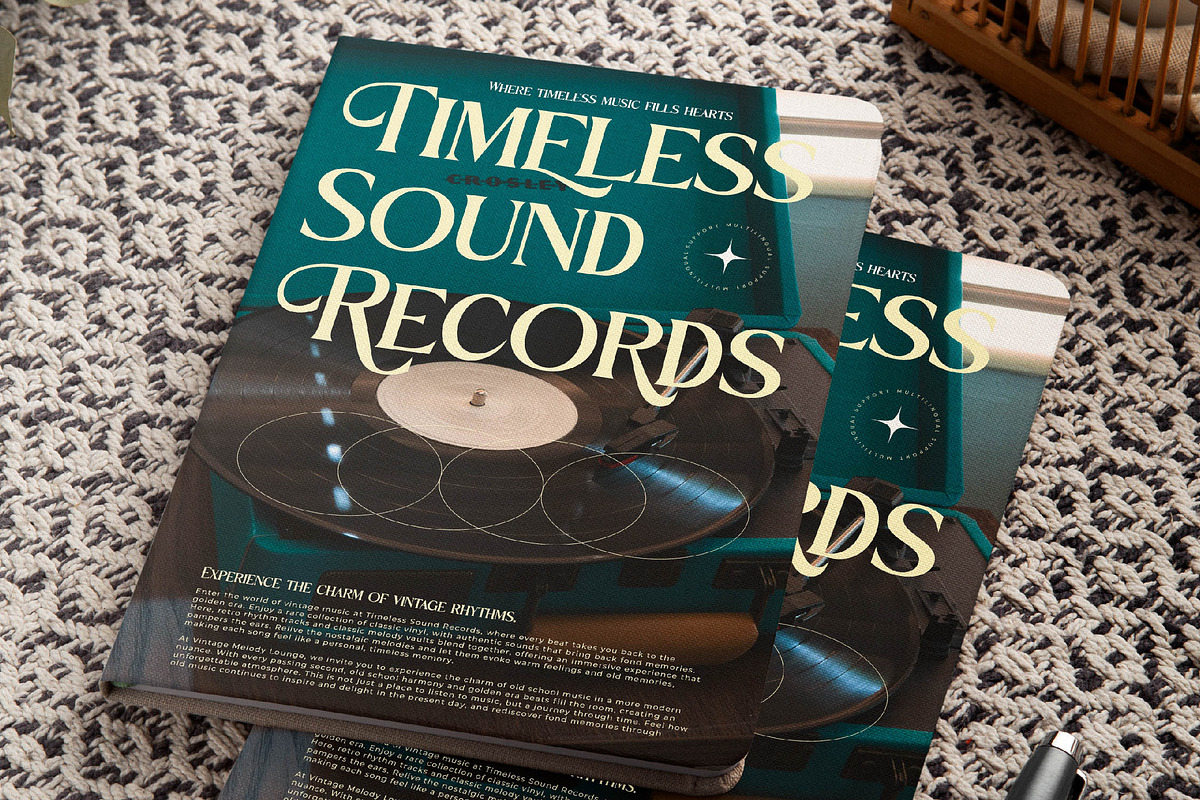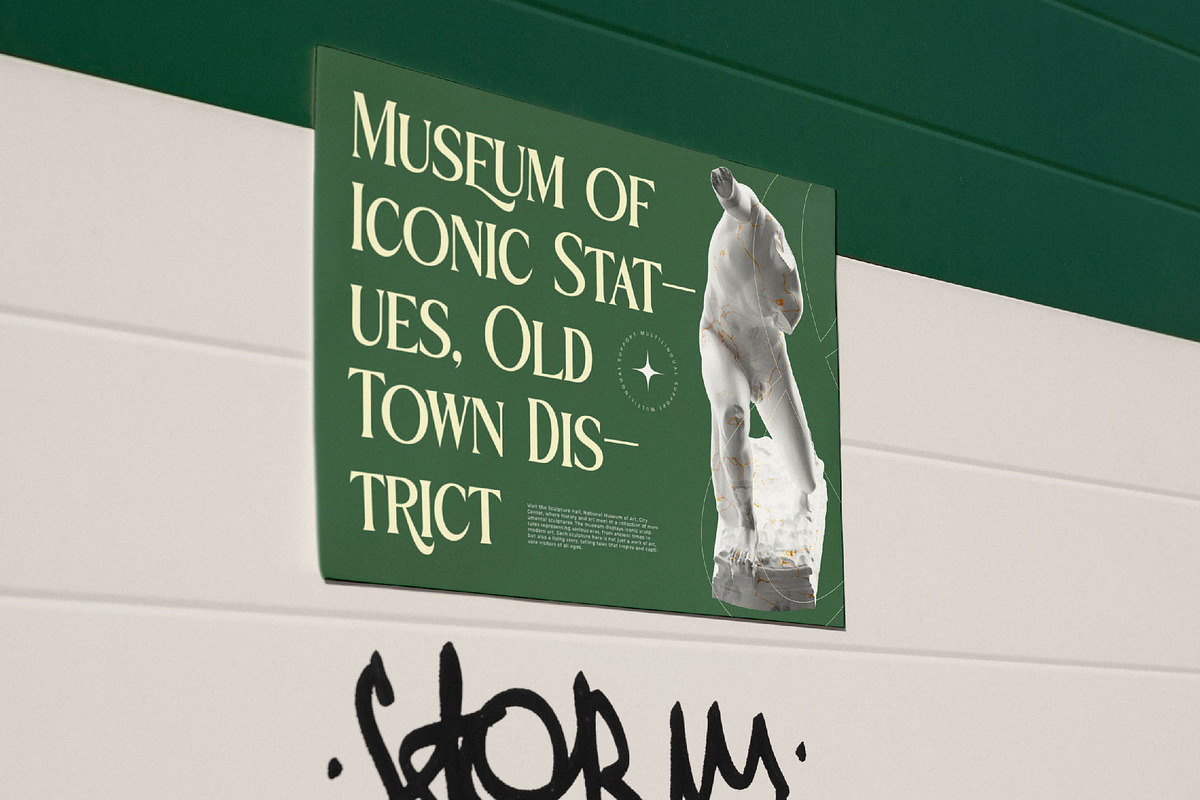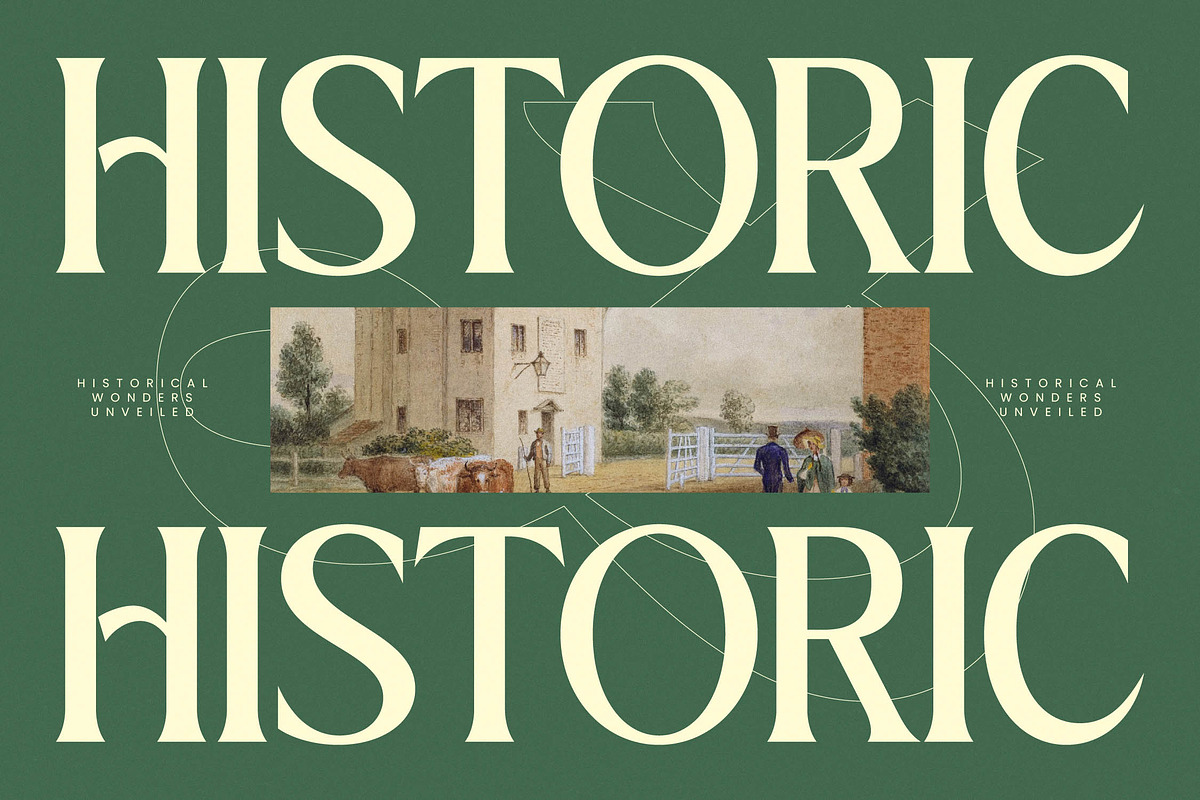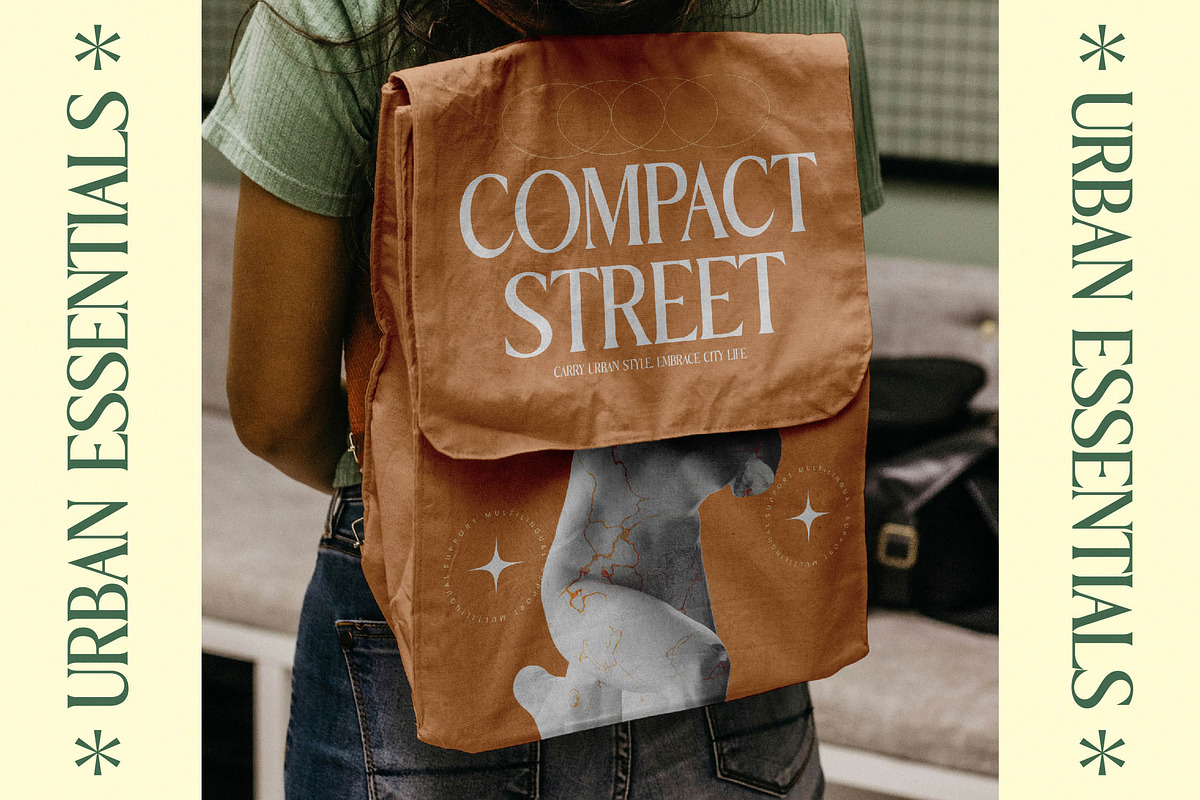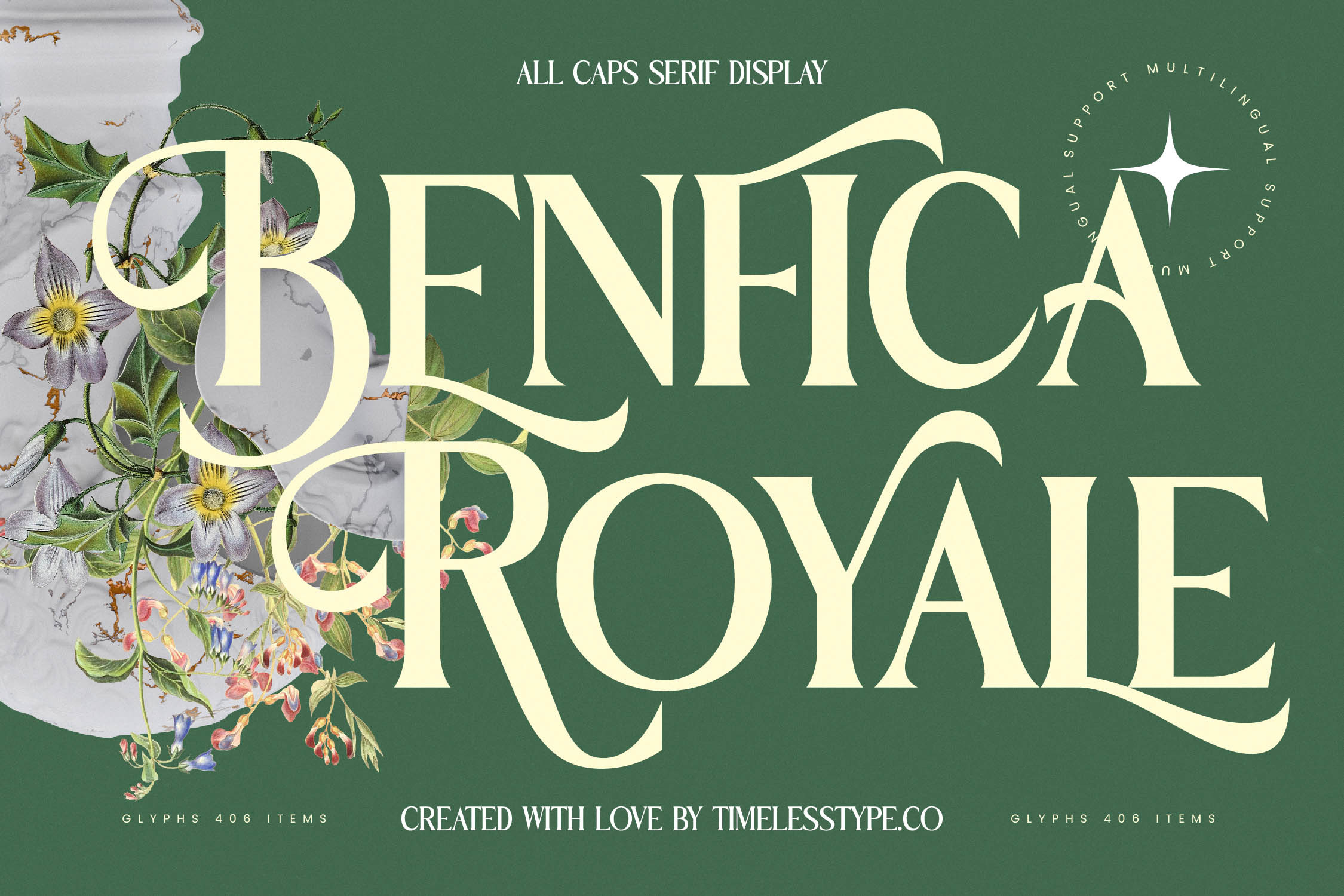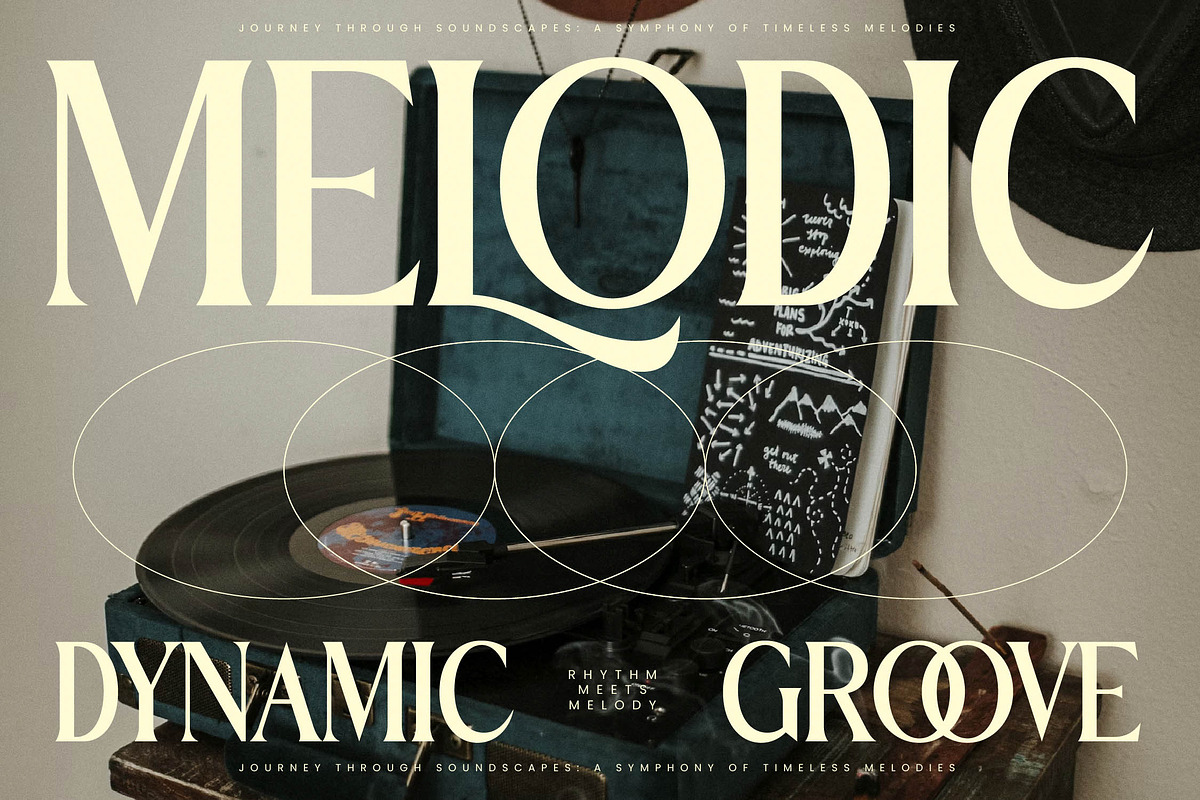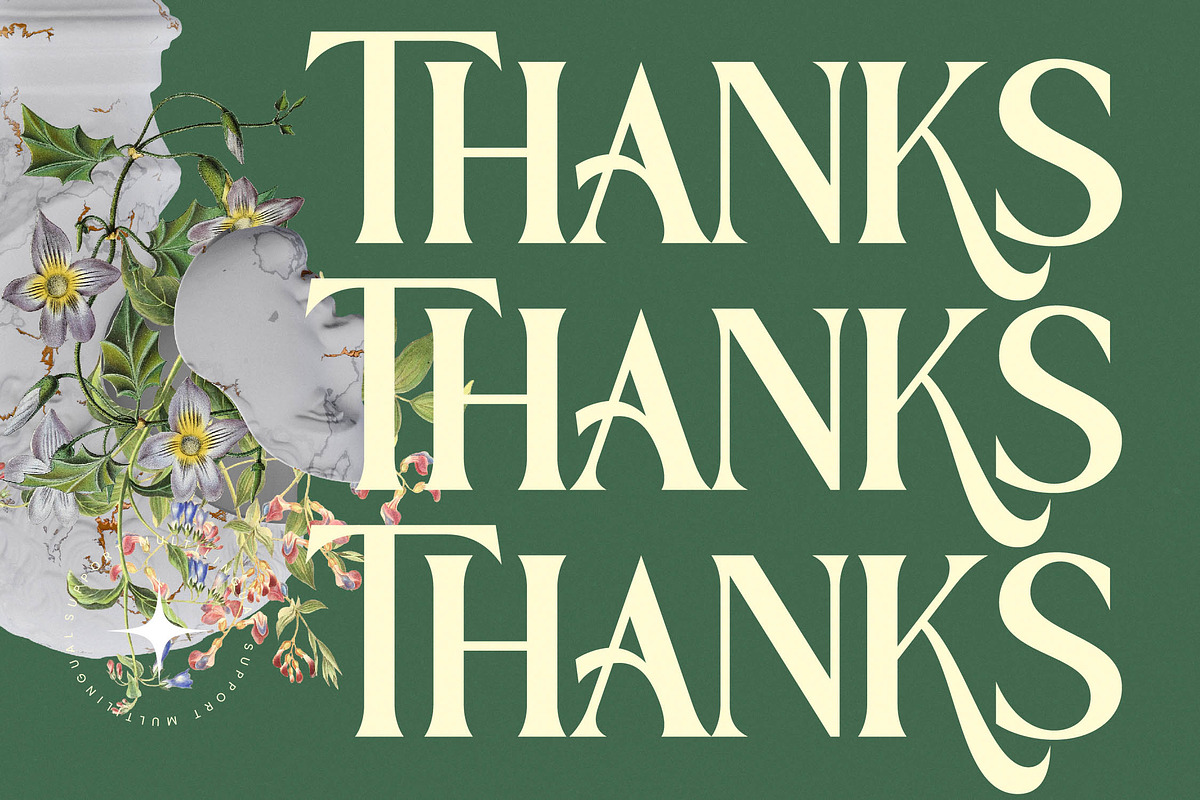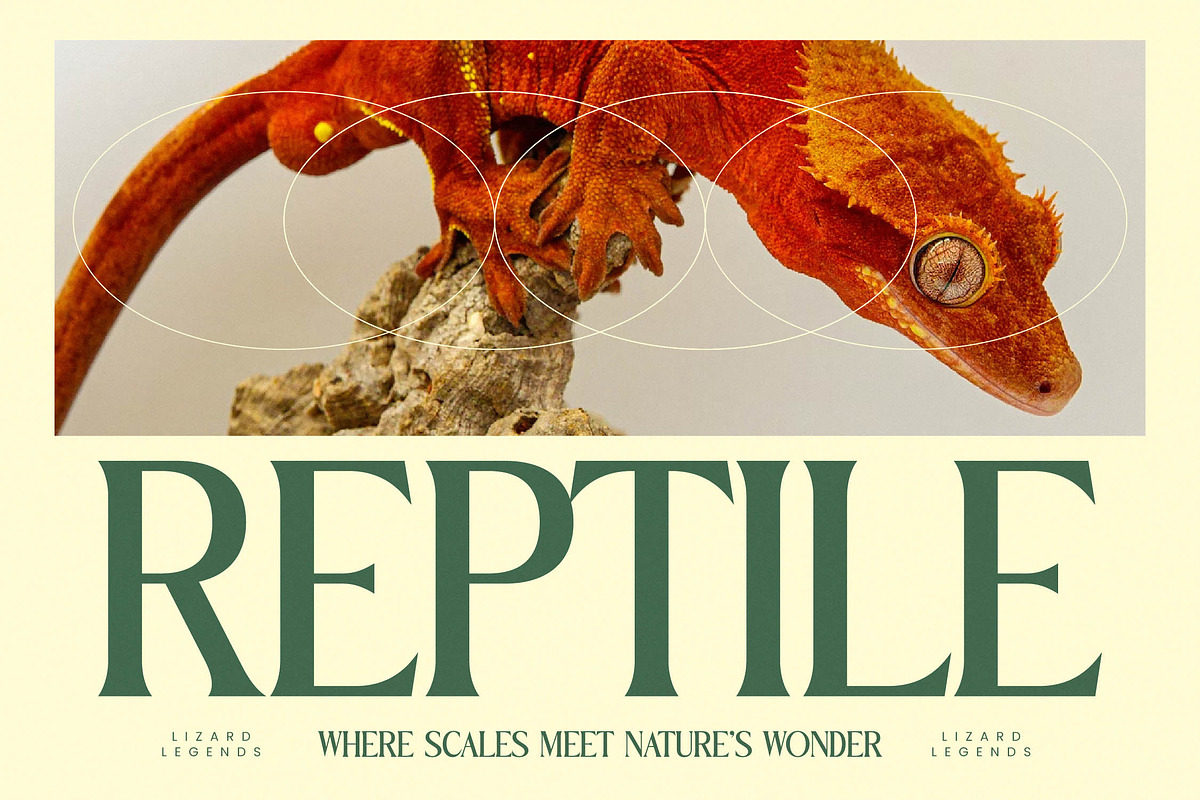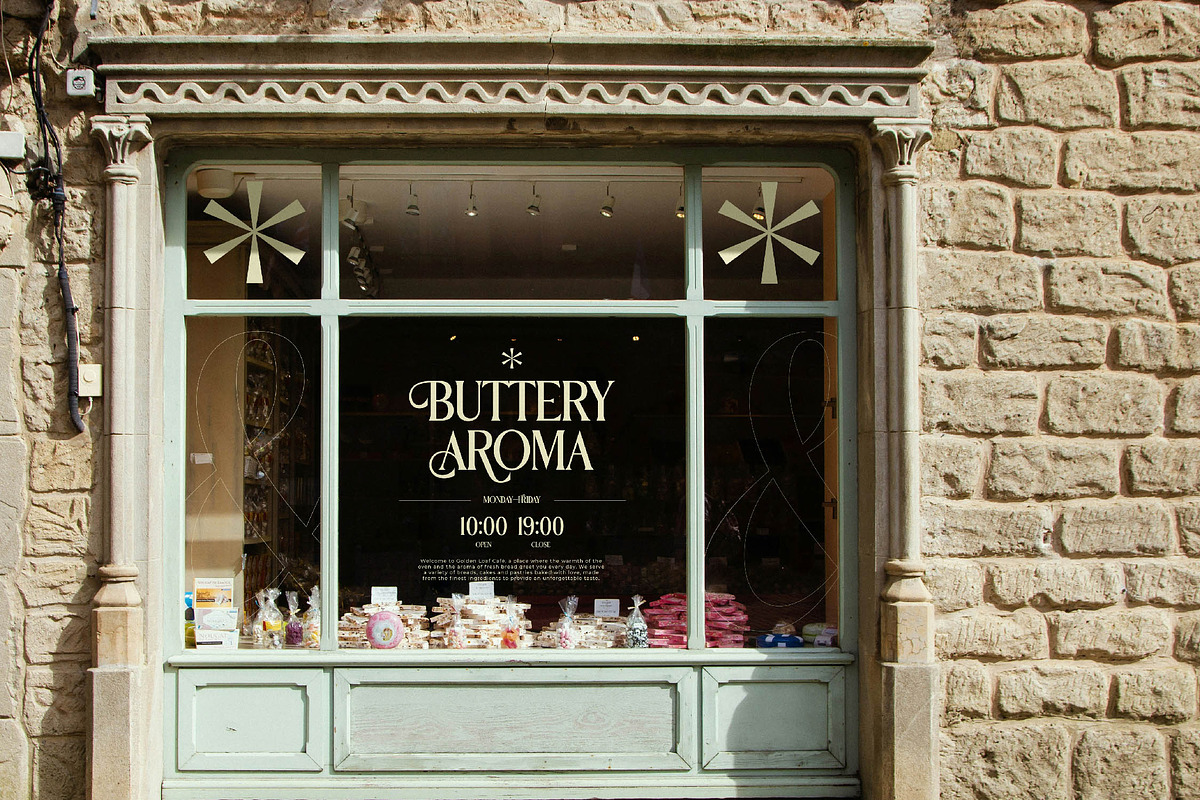
Benfica Royale Modern Serif Font
Elevate your design narrative with the breathtaking elegance of Benfica Royale, a font that commands attention and exudes pure sophistication through every curve. It is more than just a typeface; it is a statement of refined taste and timeless artistry designed for creators who refuse to settle for the ordinary.
Drawing inspiration from the intersection of classical Roman proportions and contemporary high-fashion aesthetics, this font captures the essence of a moonlit garden in an old-world estate. It reflects a visual world where architectural precision meets the fluid, organic beauty of botanical illustrations to create something truly unique.
This modern serif display is defined by its luxury typography and high-contrast serif strokes that create an unmistakable editorial font presence for maximum branding impact. Each glyph is meticulously crafted to offer a visual rhythm that is both harmonious and striking, ensuring your headlines never go unnoticed.
Riding the wave of the modern serif trend, this collection of editorial display fonts responds to the growing demand for character-driven typography that tells a unique story. It perfectly bridges the gap between vintage nostalgia and the clean, bold lines required for current high-end digital and print environments.
Ideally suited for high-impact logo design and comprehensive branding projects, it also excels in the worlds of high-end editorial layouts and luxury packaging. Its romantic yet authoritative flair makes it a premier choice for wedding invitations and fashion magazine mastheads that require a touch of class.
The font package is rich with creative possibilities, including a vast array of unique ligatures and stylistic alternates alongside elegant swashes to customize every word. Full multilingual support ensures your message reaches a global audience with inclusive international characters across many languages.
- Ligature 16 Alternate 58